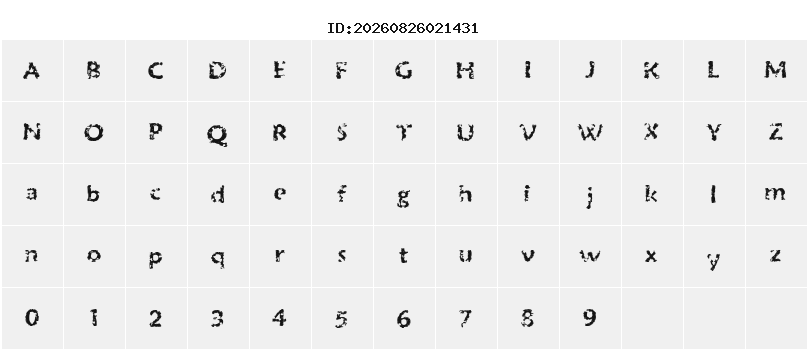
SA-Eroded Heart Preview
• Font Name: SA-Eroded Heart
About SA-Eroded Heart.ttf
SA-Eroded Heart.ttf is a modern, elegant sans-serif font designed for ultimate readability and visual harmony. Perfect for branding, headlines, web design, and print materials.